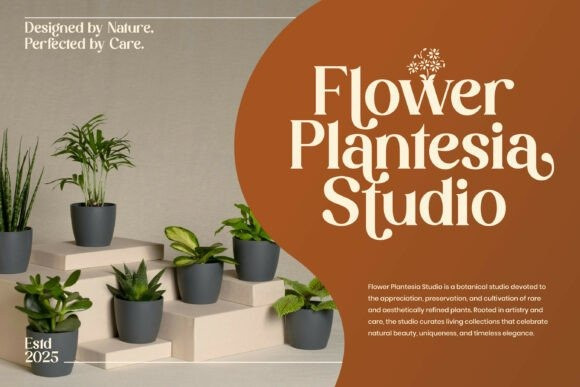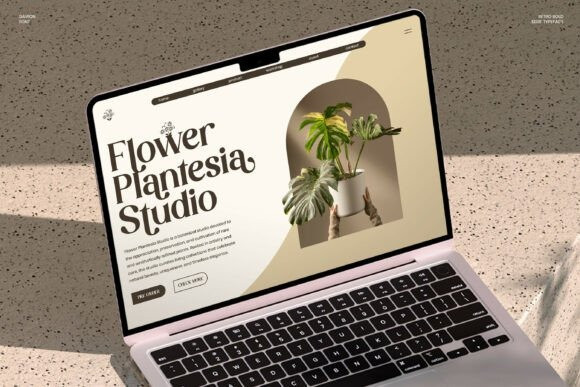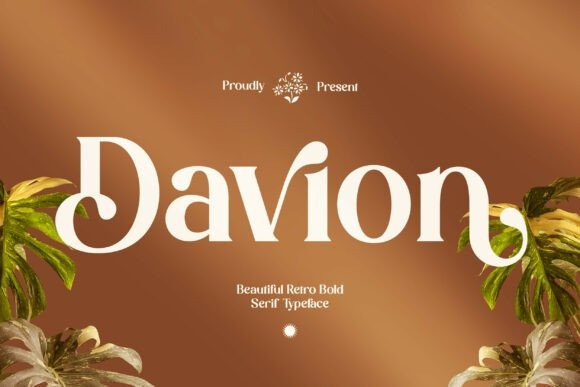
Davion Font
Davion Font is a beautiful retro bold serif typeface that blends classic elegance with a modern touch.Designed with smooth curves, bold strokes, and graceful details, Davion delivers a timeless and sophisticated character that stands out beautifully in any design.Perfect for branding, logos, editorial layouts, packaging, posters, fashion designs, and vintage-inspired projects.